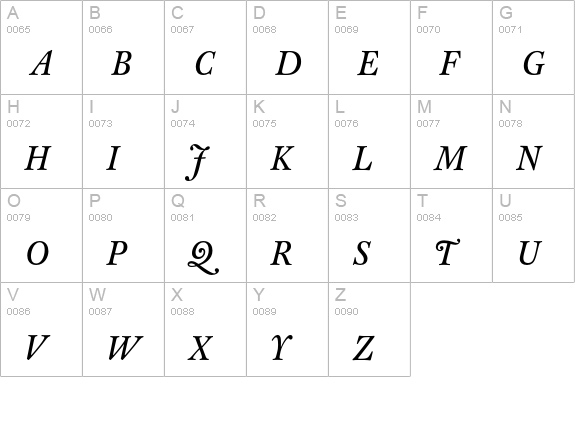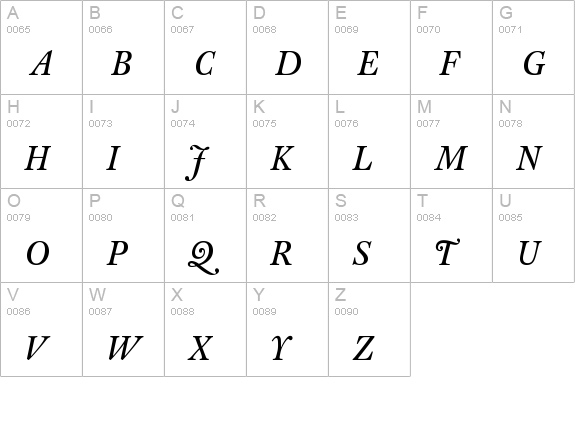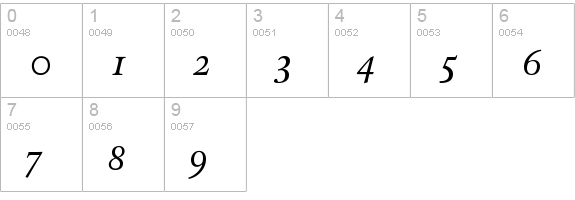
CliffordEighteen-Italic Font Details
CliffordEighteen-Italic is a distinctive, italic variant in the CliffordEighteen typeface family \xE2\x80\x94 well suited to design and typography projects.
CliffordEighteen-Italic font is a stylish and elegant typeface that combines classic sophistication with a modern twist. Its sleek lines and graceful curves make it perfect for adding a touch of sophistication to any design project. Whether you're working on a brand identity, packaging design, or any other creative endeavor, CliffordEighteen-Italic font will elevate your work to a whole new level. What sets CliffordEighteen-Italic font apart is its versatility and timeless appeal. It exudes a sense of luxury and refinement, making it ideal for projects that require a touch of elegance. The italic style adds a dynamic and energetic flair to the font, making it perfect for capturing attention and creating a lasting impression. Best of all, CliffordEighteen-Italic font is available for free download at FontsMarket.com. This means you can easily access this high-quality font and use it in your projects without any cost. So why wait? Elevate your designs with the stunning CliffordEighteen-Italic font today!